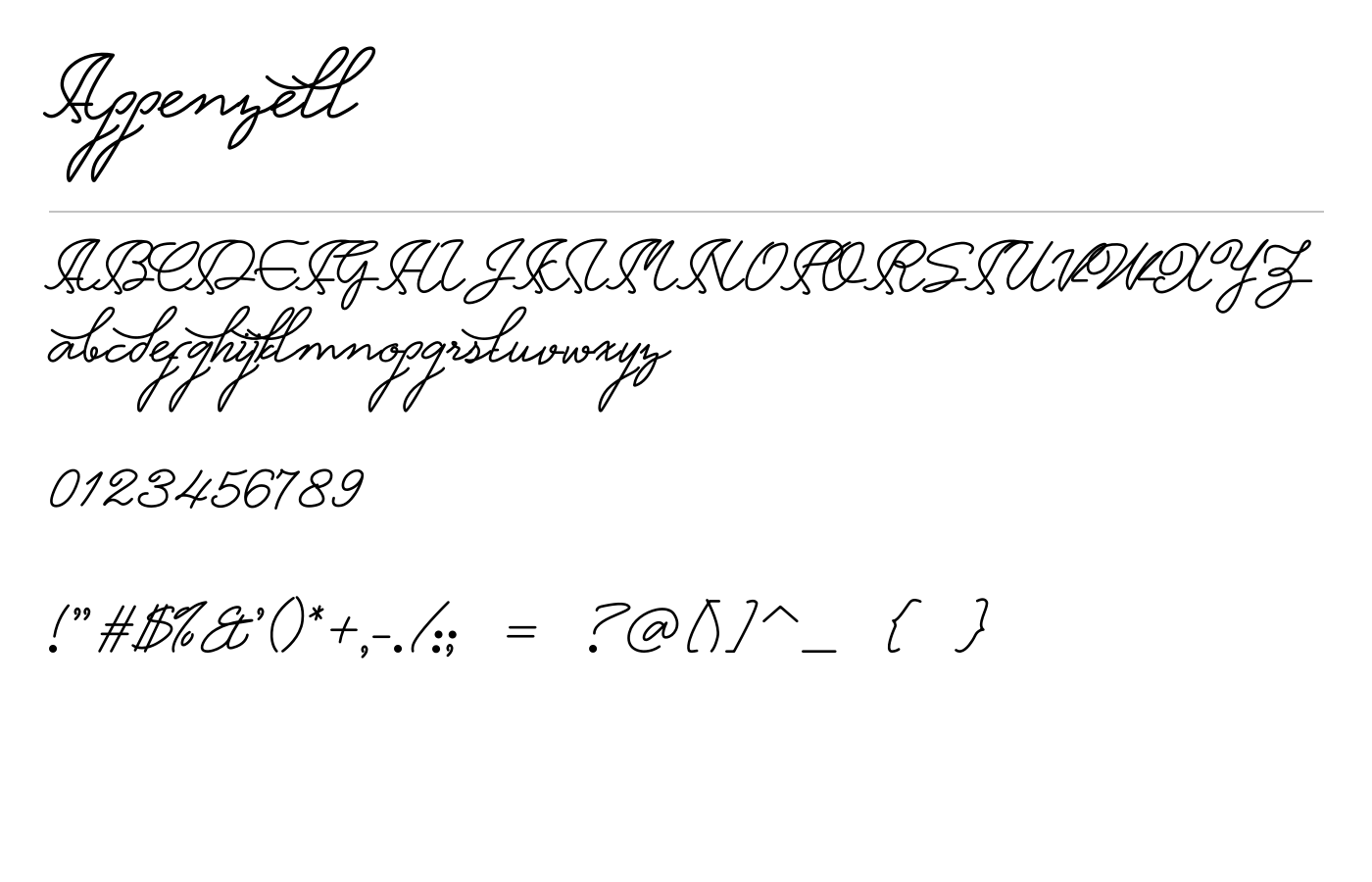
Appenzell is an elegant script font characterized by its delicate, flowing strokes and handwritten feel. Its slender weight and smooth, connected letterforms create a refined and graceful appearance, making it ideal for sophisticated branding, invitations, and artistic designs that seek a personal, stylish touch. This font works best in large sizes for headlines or logos where its intricate details can truly shine.
Appenzell Font
About Appenzell Font